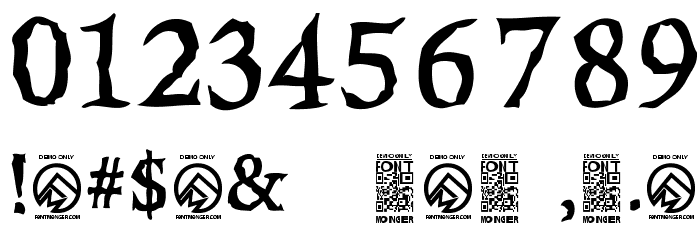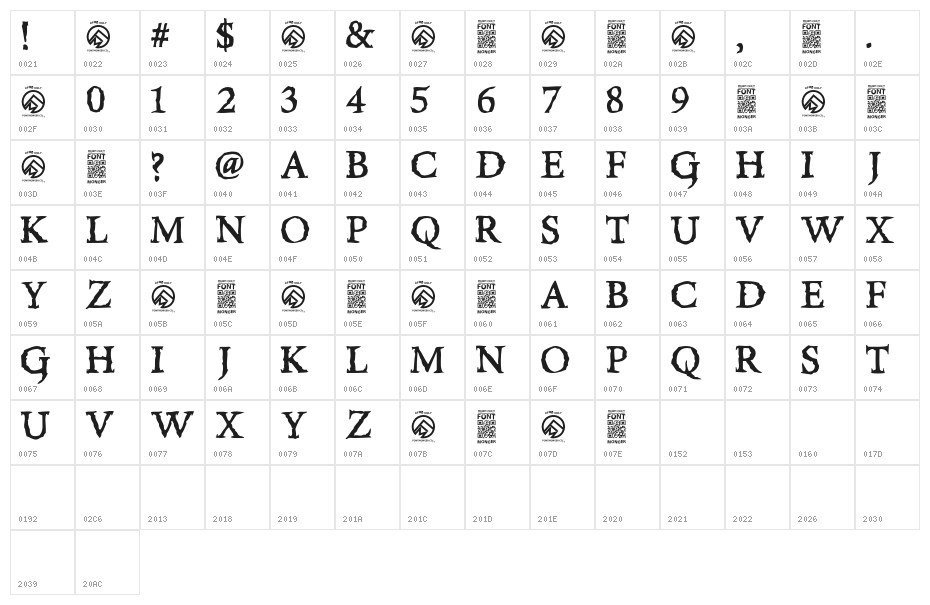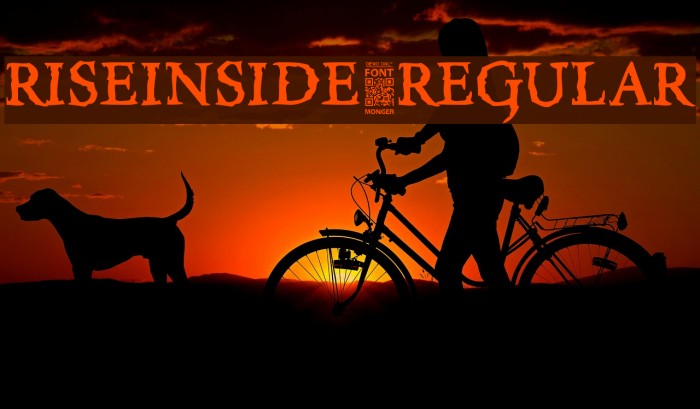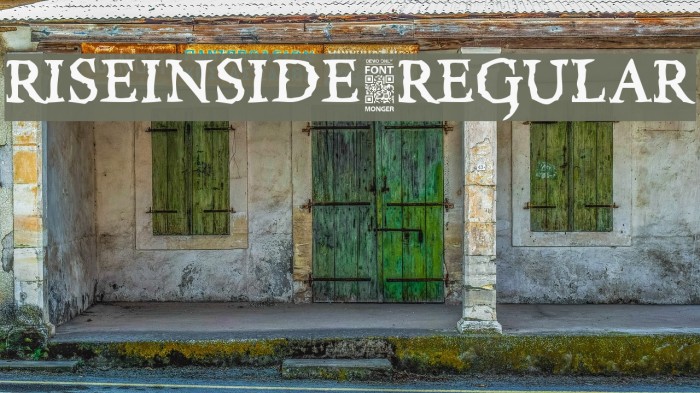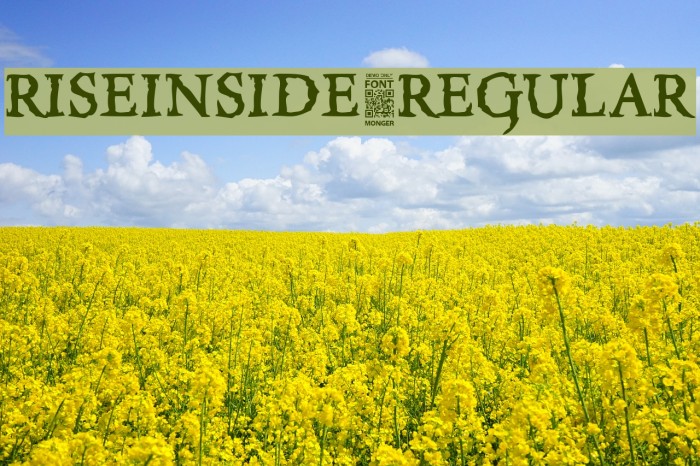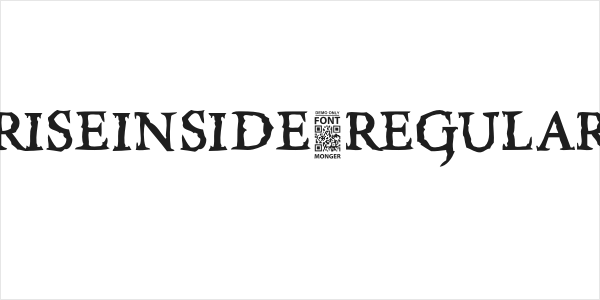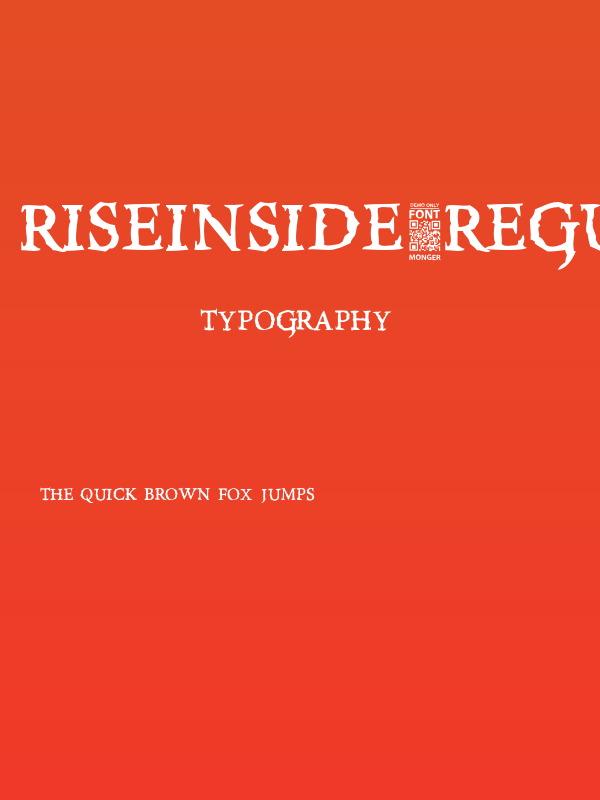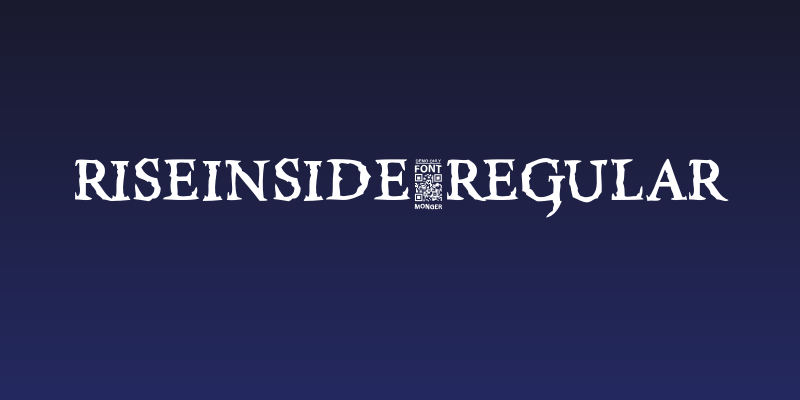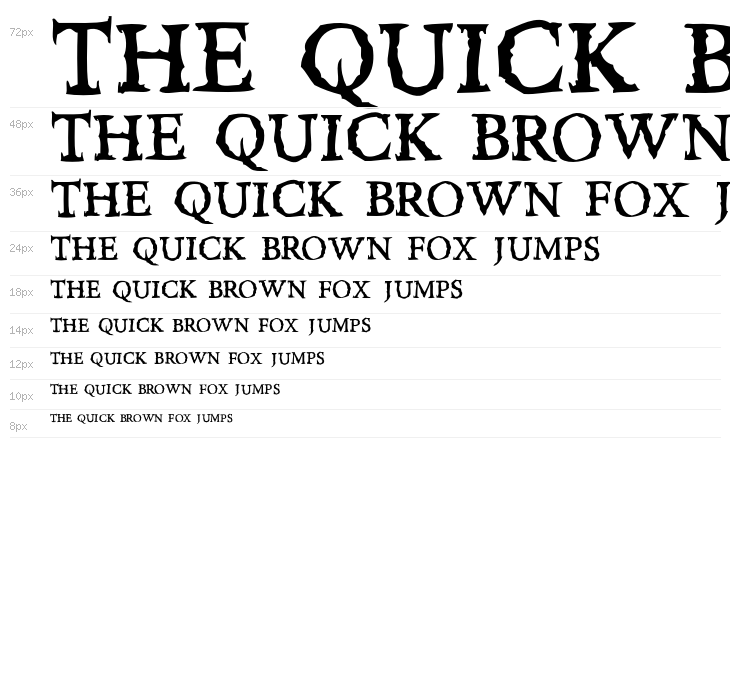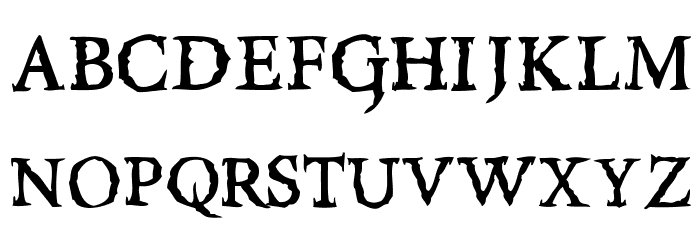
RiseInside-Regular Font
RiseInside-Regular Description
This font features a rugged and distressed style, characterized by its jagged edges and uneven strokes. The uppercase and lowercase letters maintain a consistent height, creating a cohesive look. The numerals and special characters follow the same distressed aesthetic, adding a unique flair to any text. The overall appearance is bold and impactful, making it suitable for designs that require a strong visual presence. The font's irregularities give it a hand-crafted feel, perfect for projects that aim to convey a sense of authenticity and raw energy.
| Proposed Projects | Ideal for album covers, posters, branding for edgy or alternative products, and any design needing a bold, raw aesthetic. |